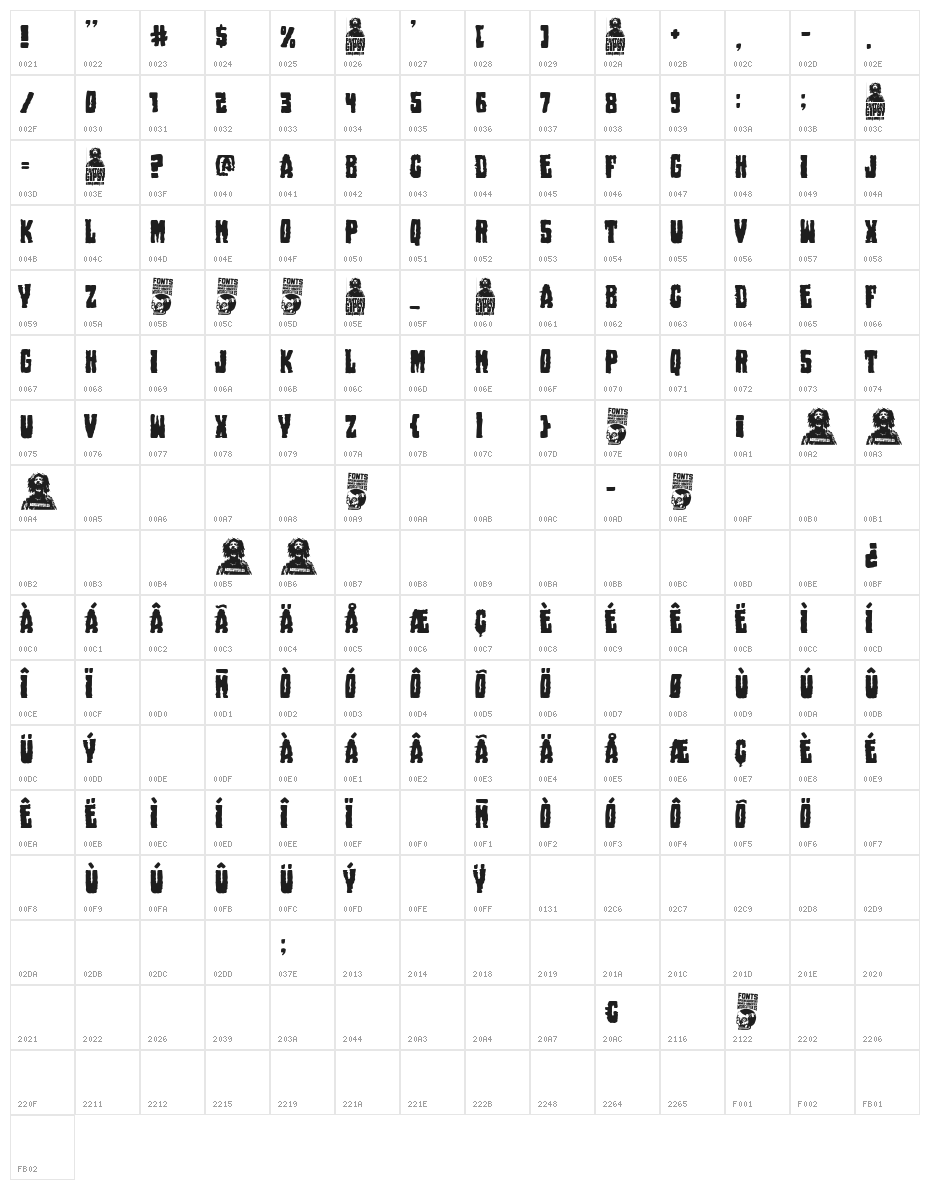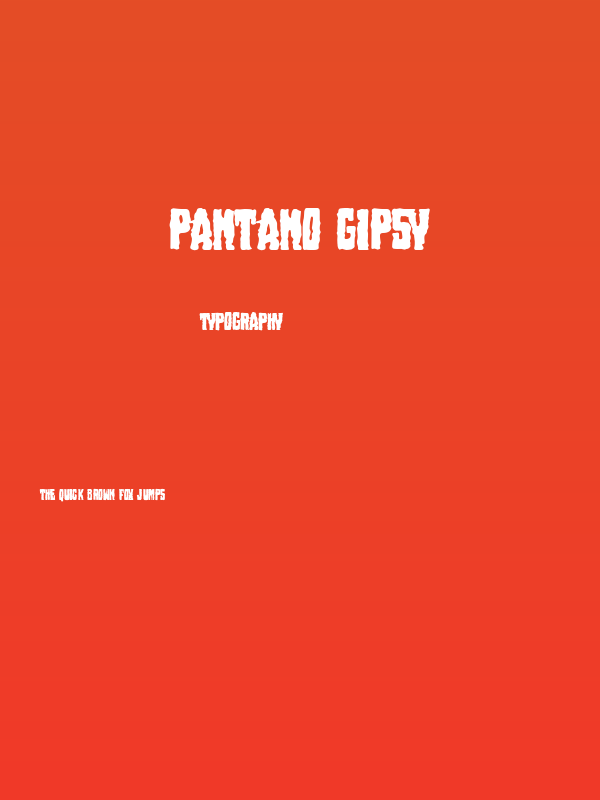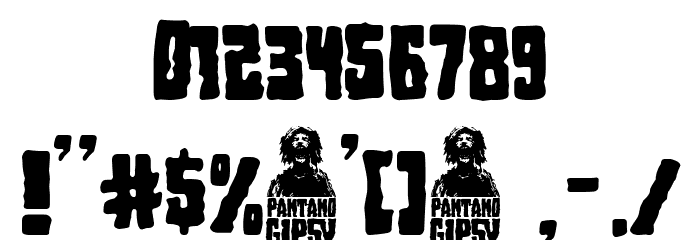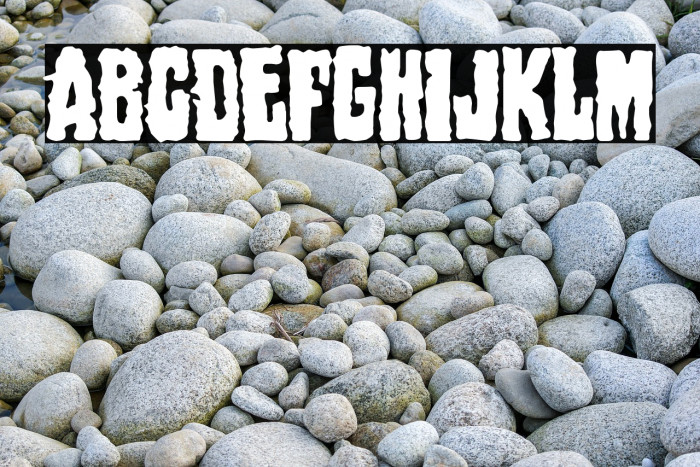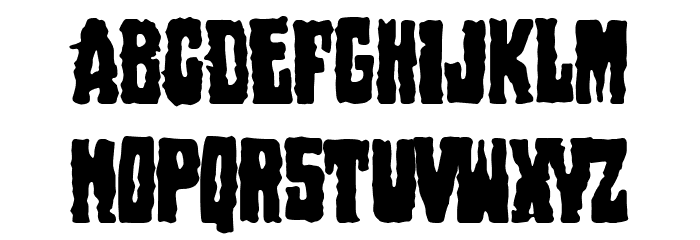
Pantano Gipsy Font
Pantano Gipsy Description
This font features a bold and rugged design with a distressed, grunge-like appearance. The characters have an uneven, hand-drawn quality, giving them a unique and edgy look. The uppercase and lowercase letters maintain a consistent style, with thick strokes and irregular edges that suggest a worn or eroded texture. Numbers and special characters follow the same aesthetic, making the font suitable for projects that require a bold, impactful statement. The overall style is reminiscent of vintage or retro themes, with a touch of rebellious flair.
| Overall Style | Vintage, Grunge |
| Proposed Projects | Ideal for music album covers, posters, branding for edgy or alternative products, and any design requiring a bold, vintage look. |